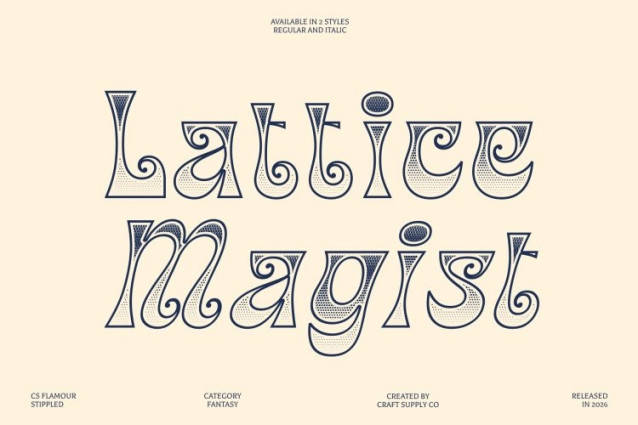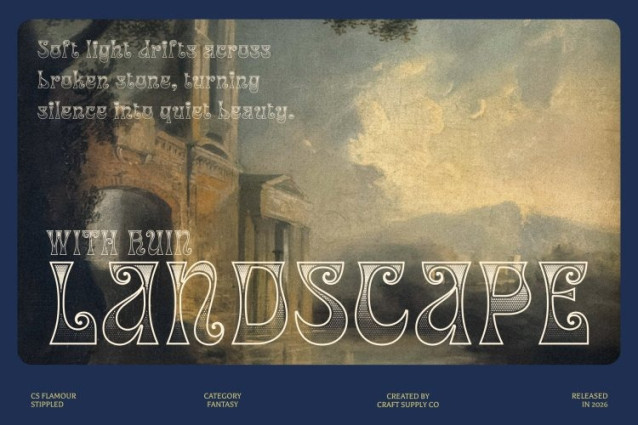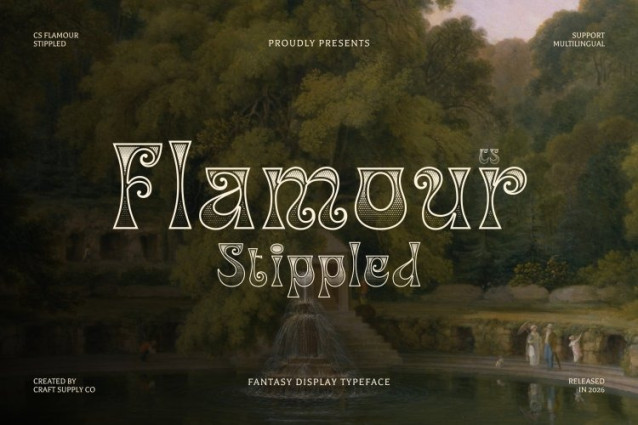
CS Flamour Stippled Font
CS Flamour Stippled Font – This is a fantasy display font designed to capture the enchanting spirit of magic, mystery, and adventure. Its whimsical curves, decorative swirls, and imaginative embellishments create a dreamlike typographic style that feels both elegant and playful. The addition of a stippled texture introduces a delicate dotted surface that enhances the ornate forms, giving the font a handcrafted, storybook-like charm.
Intricate Letterforms with Magical Character
Each letter in this font features graceful curves and artistic flourishes that evoke the visual language of mythical tales and enchanted worlds. The stippled detailing enriches these decorative shapes with subtle depth and texture, adding an extra layer of visual intrigue while preserving the clarity of the design.
Perfect for Fantasy-Themed Creations
Inspired by legendary stories and magical realms, this is ideal for book covers, game titles, movie posters, and fantasy-themed branding. Its expressive style easily adapts to both lighthearted fairy-tale atmospheres and darker, more mysterious fantasy settings.
Designed for Storytelling and Imagination
With its ornate yet readable design, this font supports visual storytelling by bringing a sense of wonder and creativity to every composition. It works beautifully for magical event invitations, themed merchandise, editorial illustrations, and imaginative branding.